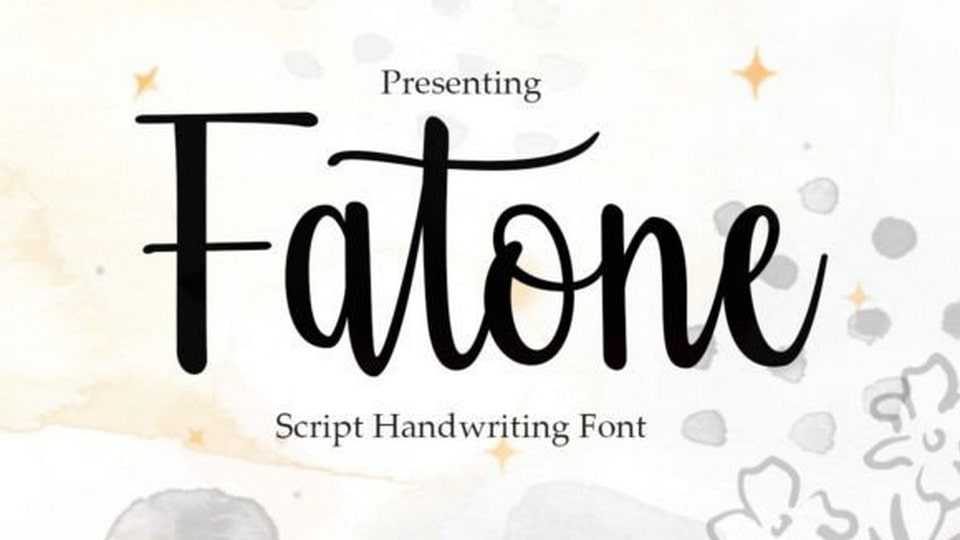
Download Fatone Script font, an elegant script with a creative mood and perfect form, inspired by today’s beautiful calligraphy: thick, balanced, and varied, born for luxury and beauty.